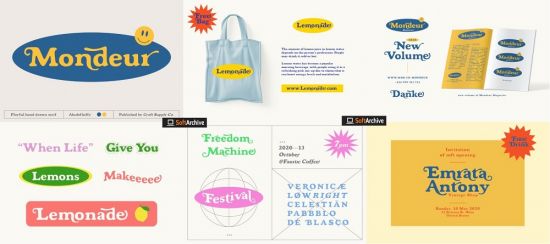
Mondeur is a playful hand-drawn serif font. With its neat and beautiful arrangement of letters, this typeface will look outstanding in both formal and non-formal designs.